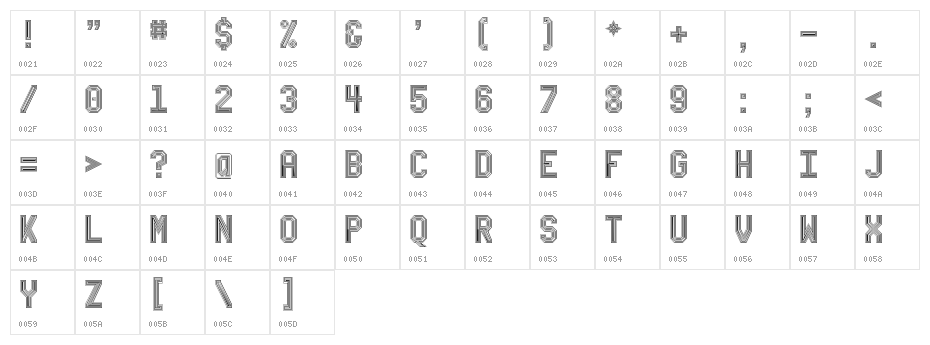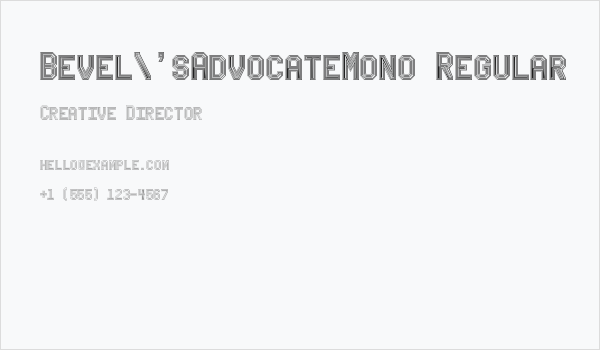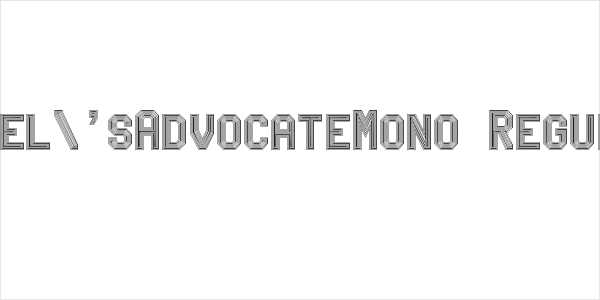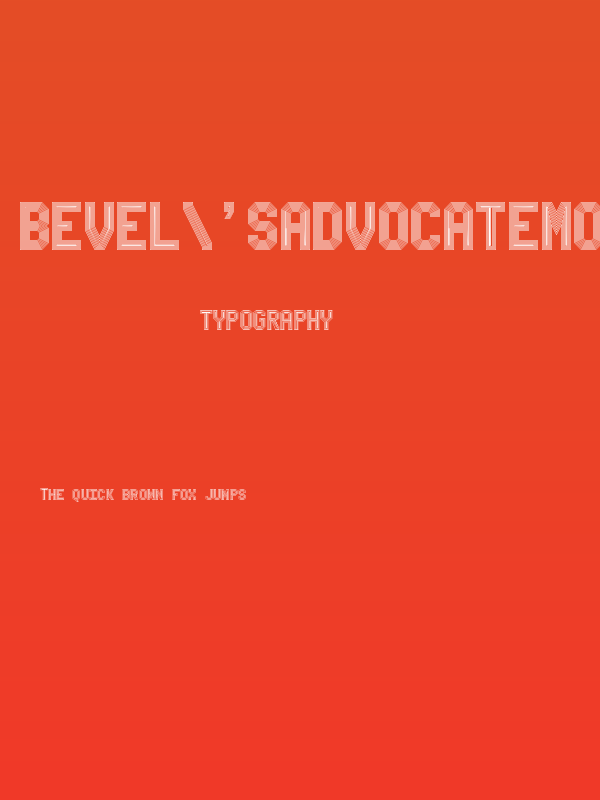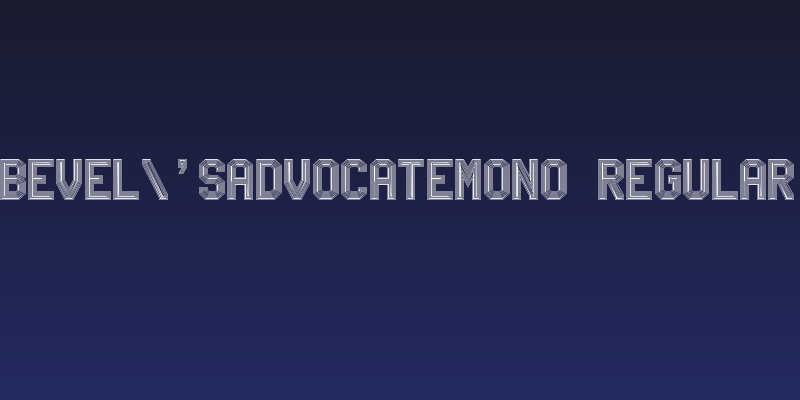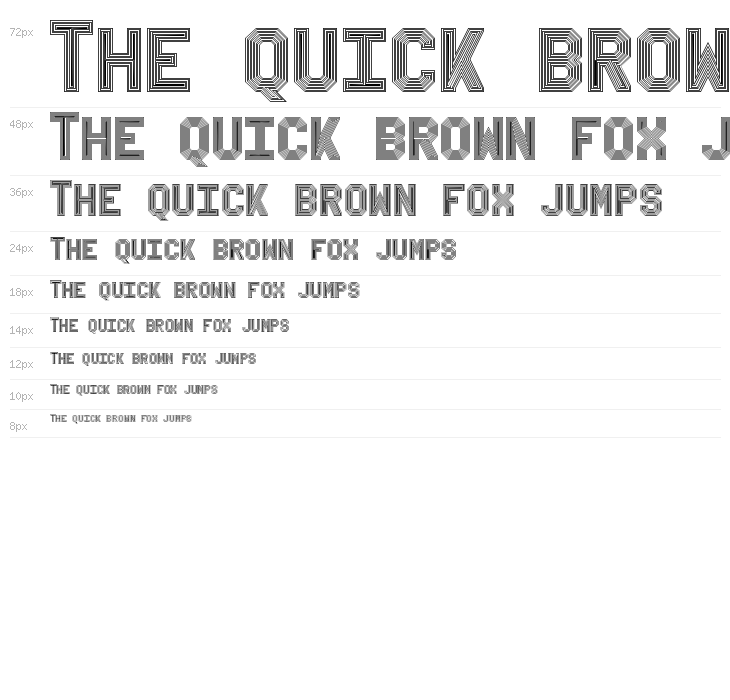
Bevel'sAdvocateMono Regular Font
Bevel'sAdvocateMono Regular Description
This font features a distinctive geometric design with a three-dimensional effect created by multiple parallel lines forming each character. The letters are monospaced, ensuring uniform spacing, which is ideal for coding or technical documents. The bold, structured appearance gives it a modern and futuristic feel, while the intricate line work adds a decorative touch. The uppercase and lowercase letters maintain consistency in style, and the numerals are equally bold and clear. Special characters are designed with the same attention to detail, making this font versatile for various applications.
| Use Case | Logos, Headlines, Coding |
| Proposed Projects | Ideal for tech branding, coding interfaces, futuristic designs, and posters. |